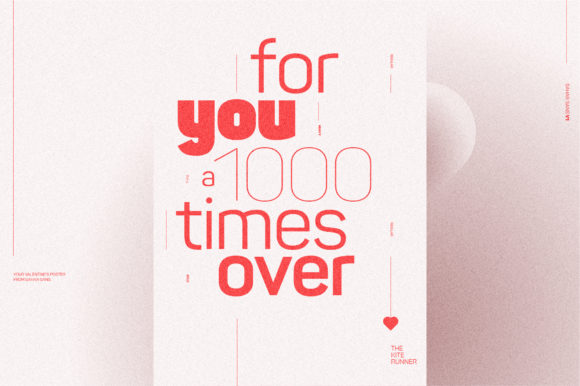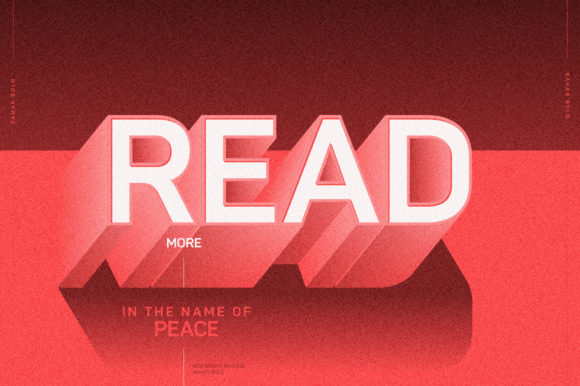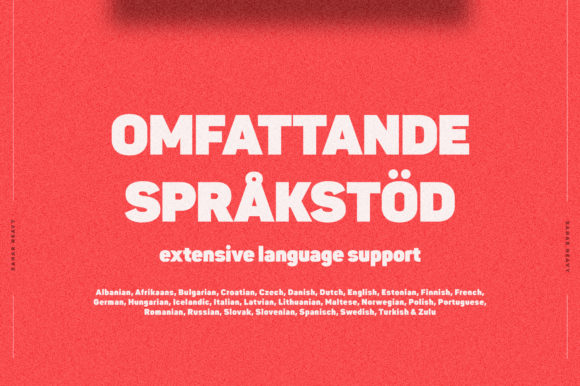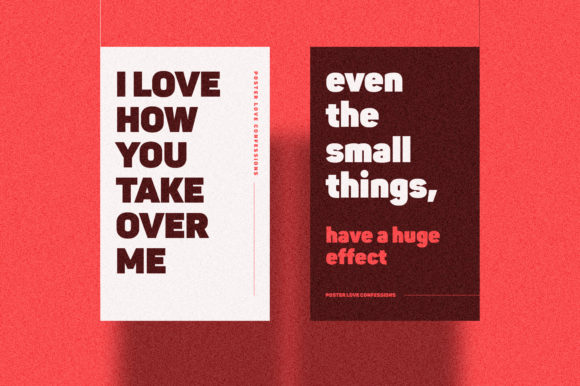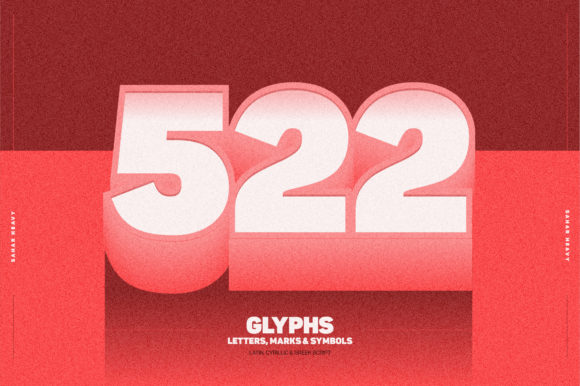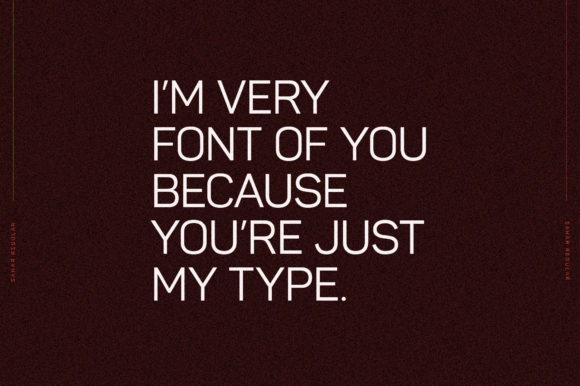
Introduction to Sahar Font
Have you ever found yourself in the midst of a creative project, searching for the perfect font to bring your vision to life? The right font can make all the difference in setting the tone and conveying the message you want to share with your audience. For designers, a high-quality font is an essential design resource that can elevate even the most mundane ideas into something extraordinary.
Enter Sahar Font, a stunning creation that has captured the hearts of designers worldwide. This dynamic and charming font is not just a pretty face – its uncompromising style is backed by a robust set of features that make it a valuable addition to any design arsenal. With its modern touches and controlled letterforms, Sahar Font is perfect for designers who want to make a statement without sacrificing clarity.
Key Features of Sahar Font
- Unique and elegant font style with a transparent background, ideal for backgrounds and overlays.
- Includes a range of font sizes, from 12 to 72 points, to suit various design needs and resolutions.
- Resolution-independent, making it suitable for use in both print and digital designs.
- Designed to be versatile and easily customizable, allowing users to adjust font styles and sizes to suit their creative vision.
Honest Review: Sahar Font
I recently came across the Sahar Font and was excited to see if it would meet my design needs. Overall, I was impressed with its high quality and versatility.
- ✨ High-quality glyphs and letterforms
- ✨ Clear and readable, even at smaller sizes
- ✨ Compatible with most design software and operating systems
- ⚠️ Limited font weight options
- ⚠️ Not ideal for large-scale, professional design projects
- ⚠️ Transparent background can be tricky to work with in some design applications
As a design resource, the Sahar Font is perfect for smaller, creative projects where a simple, elegant font is needed. It’s also available for free download, which is a huge plus. While it may not be suitable for every design project, I would definitely recommend it for anyone looking for a high-quality, free font.
Overall, I’m impressed with the Sahar Font and would use it again for future design projects. It’s a great addition to any designer’s toolkit.
Sahar Font
The Sahar Font is a high-quality design resource ideal for various creative projects. This versatile font features a transparent background, making it perfect for overlaying on images or backgrounds.
Tips for Getting the Most Out of the Sahar Font
To get the most out of the Sahar Font, experiment with different font sizes, colors, and combinations. This will help you achieve a unique and professional look for your creative project.
The Sahar Font is ideal for:
- Logo designs
- Document design